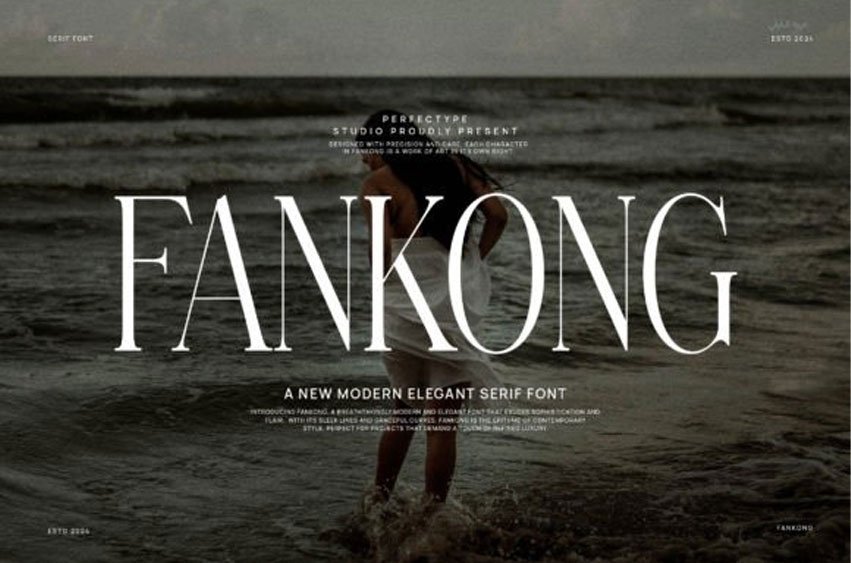
Fankong Font
Fankong Font is a modern and elegant serif font.
This type of font is very suitable for your various needs such as branding projects, logos, social media posts, advertisements, labels, product packaging, photography, wedding designs, watermarks, invitation product designs, stationery, and any project, made at a high price. readability level.